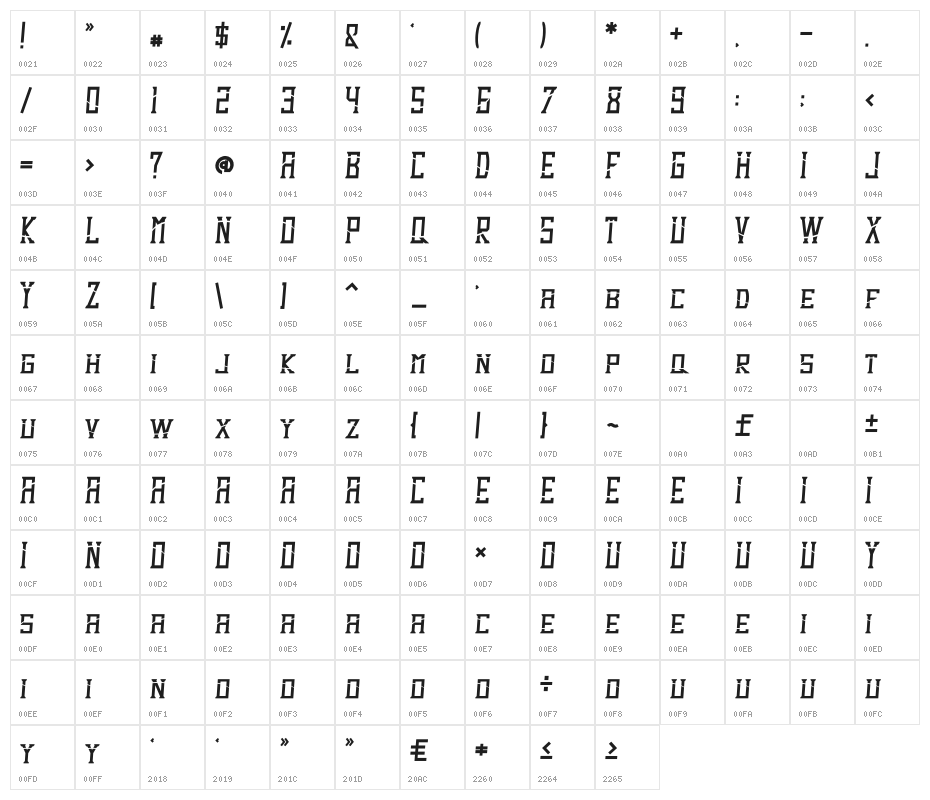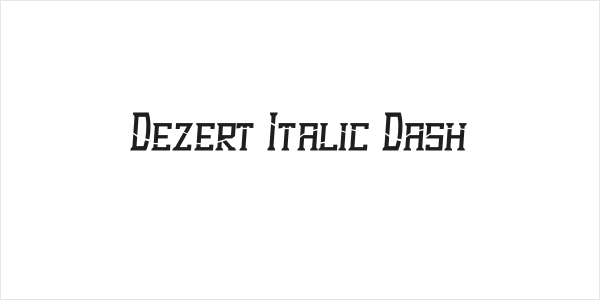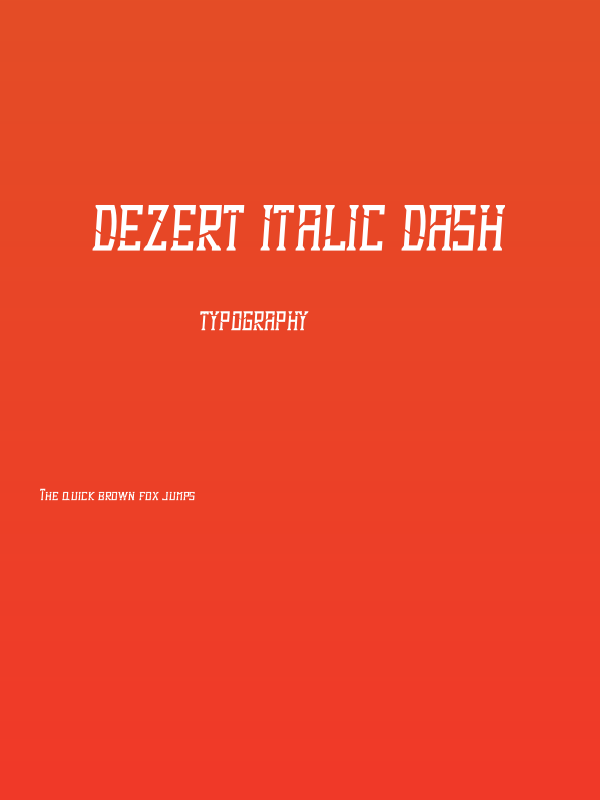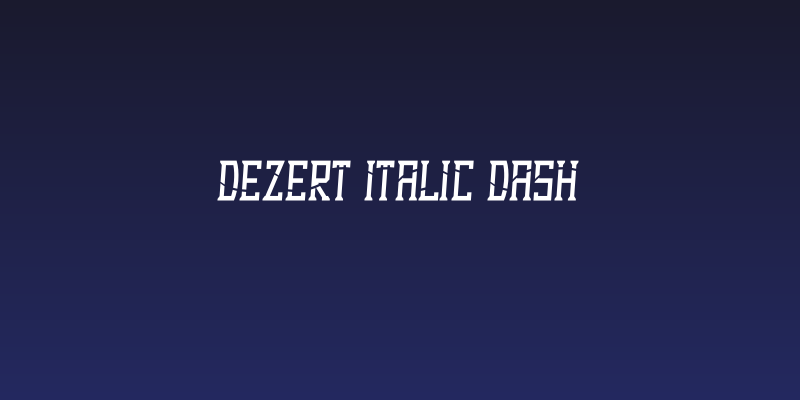
Dezert Italic Dash Font
Dezert Italic Dash Description
This font features a bold, angular design with a distinct italic slant, creating a dynamic and energetic appearance. The characters are constructed with sharp edges and geometric forms, giving it a futuristic and edgy feel. The uppercase and lowercase letters maintain a consistent style, with a unique cut-through effect that adds a sense of movement and modernity. The numbers and special characters follow the same design principles, ensuring uniformity across the typeface. This font's striking appearance makes it ideal for attention-grabbing headlines and creative projects.
| Proposed Projects | Ideal for sci-fi themed designs, video game titles, posters, and branding that requires a modern and dynamic look. |